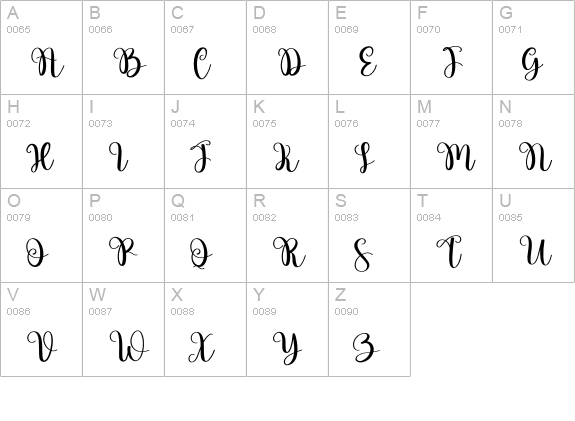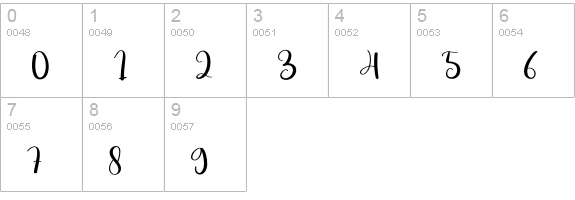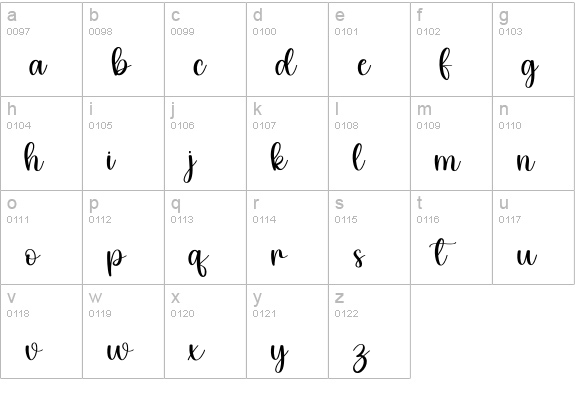
Vintage Signature font is a timeless and elegant typeface that evokes nostalgia and sophistication. With its carefully crafted curves and stylish flourishes, this font is perfect for adding a touch of vintage charm to your designs. Whether you're working on a wedding invitation, a branding project, or a poster design, Vintage Signature font will elevate your work to a new level of elegance.